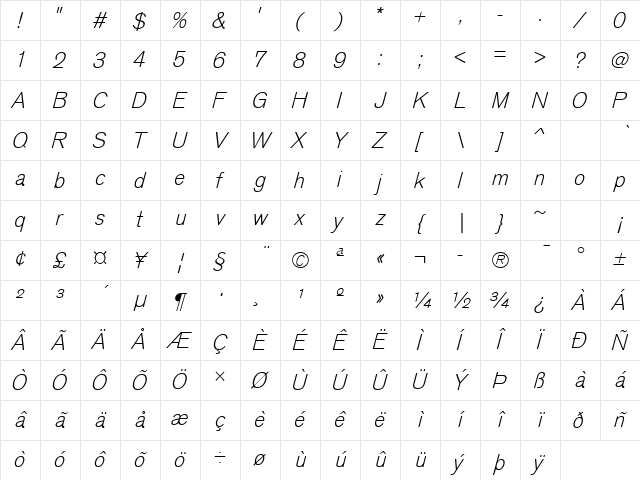
Sage Light Oblique Free Font
Design Context for Sage Light
Sage Light is a composed and adaptable typeface that performs quietly and consistently across a wide range of design contexts. The slanted form adds forward momentum and visual energy. Its slender proportions lend an understated elegance to any composition.
Pro Tip: Use Sage Light for emphasis, pull quotes, and subheadings where its slanted energy can add rhythm to the layout.